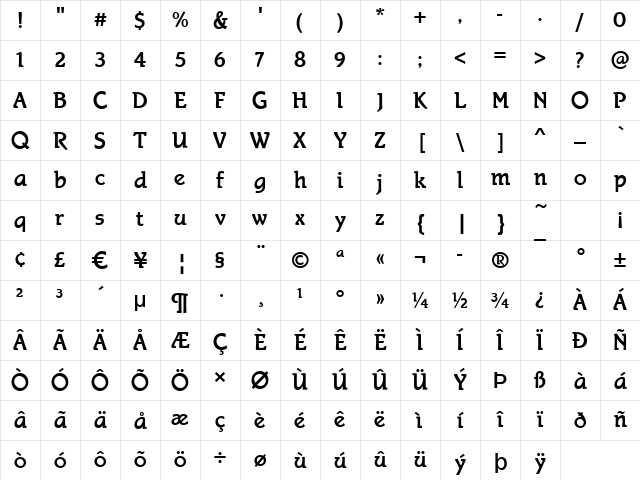
Sheffield Regular
Sheffield Family
Design Context for Sheffield
Sheffield is a composed and adaptable typeface that performs quietly and consistently across a wide range of design contexts.